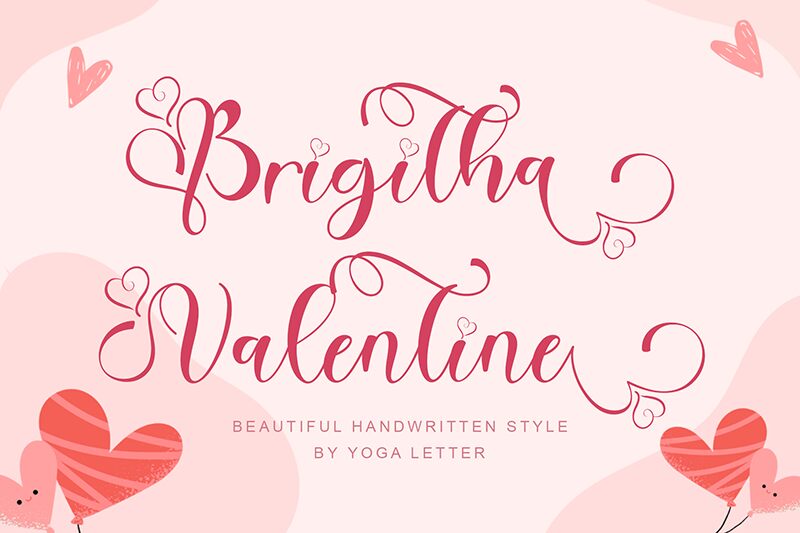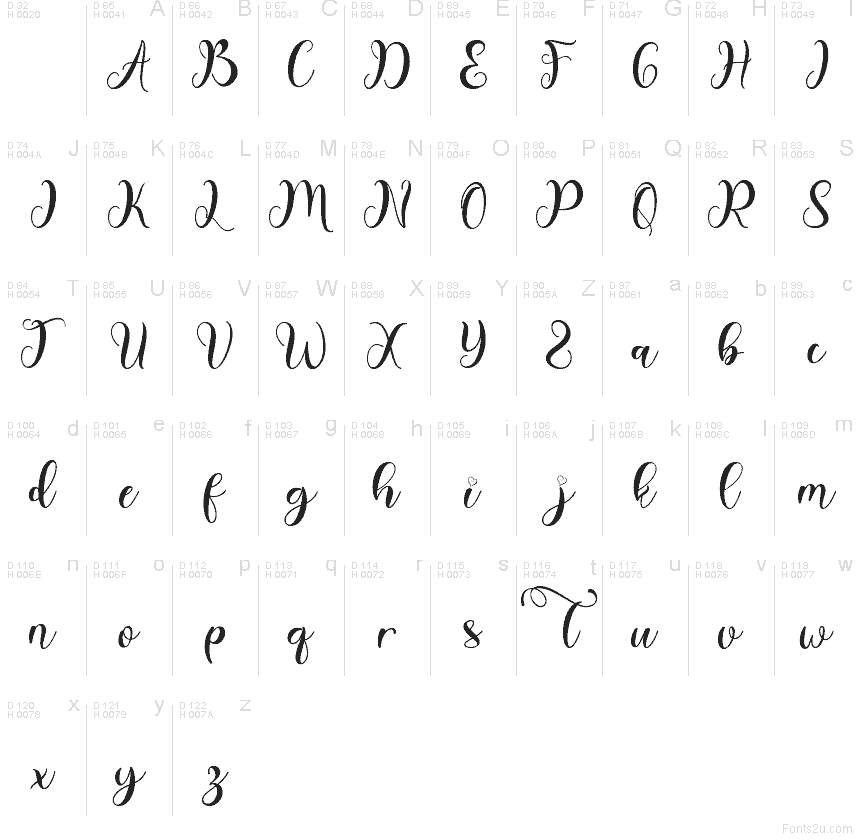
Brigitha Valentine
Brigitha Valentine font by Yoga Letter is a free holiday calligraphy typeface that feels like it was written with a sparkly gel pen on a love note. Sweeping loops, airy curls, and tiny heart details give each word a soft, romantic glow, while the letters connect with an easy, hand-drawn rhythm that still reads clearly at medium sizes. It’s sweet without being sugary, so your romantic messages feel personal rather than generic.
Using Brigitha Valentine, you can dress up wedding invitations, Valentine’s cards, love letters, product packaging, social media posts, and photo overlays with instant charm. This free font shines on quotes and headers, especially when you give it generous line spacing so the flourishes can breathe. Pair it with a simple sans serif for body text to keep layouts balanced and let Brigitha Valentine carry the emotion.